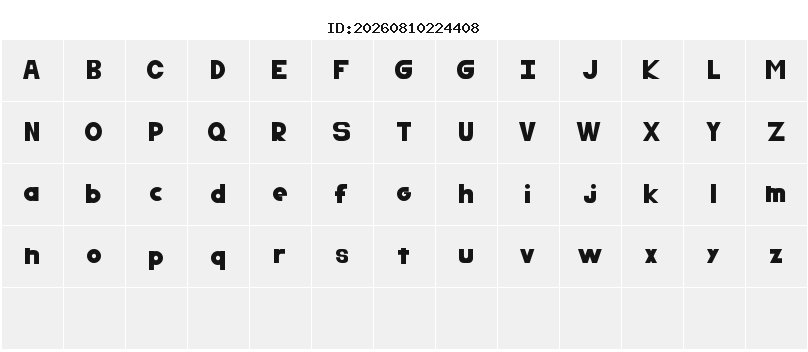
• Font Name: resilience
• Designer: Luis Jaramillo
• Manufacturer: LJ-Design Studios
About resilience.ttf
resilience.ttf is a modern, elegant sans-serif font designed for ultimate readability and visual harmony. Perfect for branding, headlines, web design, and print materials.